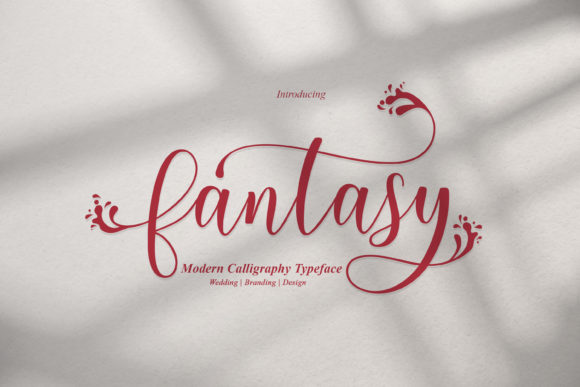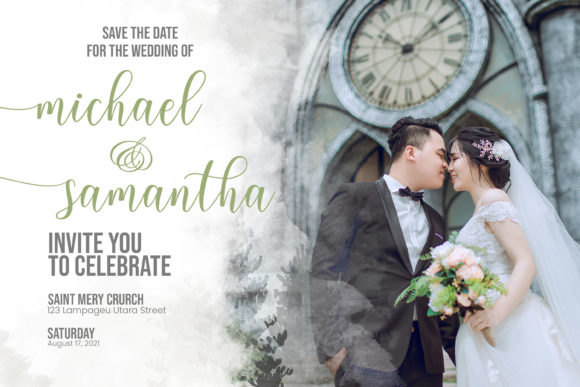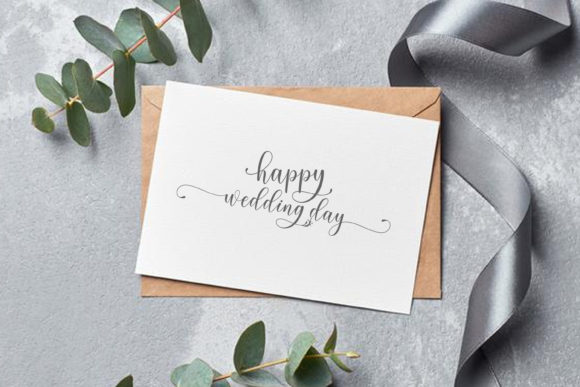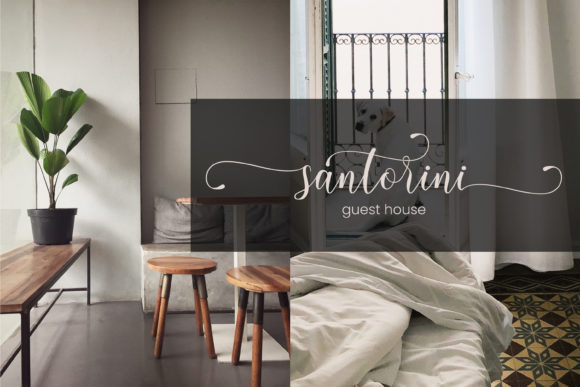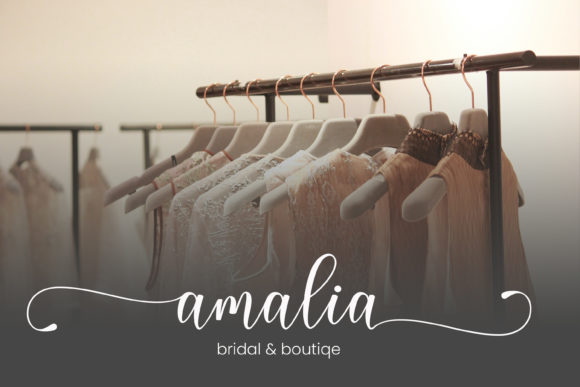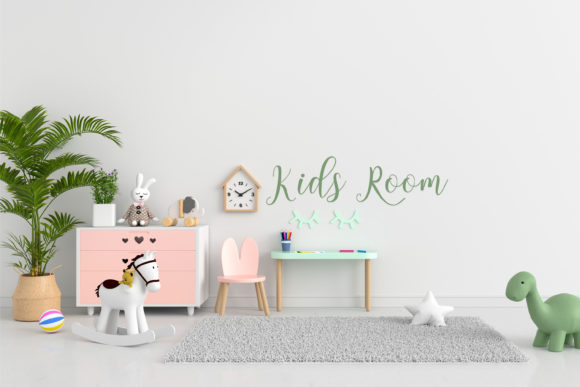
Fantasy Script Font: Elevate Your Designs with Elegance and Sophistication
In the realm of typography, few fonts manage to convey the essence of luxury and refinement as effectively as the Fantasy Script Font. This exquisite script font is designed to bring a touch of sophistication and elegance to any project, making it a versatile choice for designers and crafters alike. With its stylish alternates and ligatures, Fantasy Script Font is poised to become the go-to typeface for those seeking to elevate their designs.
The Essence of Fantasy Script Font
Fantasy Script Font is more than just a typeface; it’s an experience. Its chic and refined design exudes an air of luxury, perfect for projects that demand a high level of sophistication. Whether you’re working on a branding campaign, packaging design, or a website layout, this font ensures that your text looks elegant and premium.
Key Features of Fantasy Script Font
- Stylish Alternates: One of the standout features of Fantasy Script Font is its collection of stylish alternates. These variations allow you to customize your text, adding a unique touch to your designs. Whether you need a more formal look or something a bit more whimsical, the alternates have got you covered.
- Ligatures: Ligatures are essential for creating a natural flow in script fonts, and Fantasy Script Font does not disappoint. The ligatures in this font are meticulously crafted to ensure that the text flows smoothly, enhancing readability and aesthetic appeal.
- Elegance and Versatility: What sets Fantasy Script Font apart is its perfect blend of elegance and versatility. It can be used in a wide range of projects, from high-end branding and advertising to elegant stationery and web design.
Applications of Fantasy Script Font
The versatility of Fantasy Script Font makes it suitable for various applications. Here are some of the areas where this font truly shines:
- Branding and Logo Design: For brands aiming to convey luxury, sophistication, and elegance, Fantasy Script Font is an excellent choice. Its unique and stylish appearance can help a brand stand out in a crowded market.
- Website Design: In web design, typography plays a crucial role in user experience. Fantasy Script Font, with its readability and aesthetic appeal, can add a touch of class to any website, making it more engaging for visitors.
- Packaging Design: For product packaging, especially for high-end or luxury goods, the font used can significantly impact consumer perception. Fantasy Script Font can add an element of sophistication and premium quality to packaging designs.
- Stationery and Invitations: Whether it’s wedding invitations, business cards, or letterheads, Fantasy Script Font can elevate the design of any stationery item, making it look more refined and elegant.
Tips for Using Fantasy Script Font
To make the most of Fantasy Script Font, consider the following tips:
- Pair it Wisely: When pairing Fantasy Script Font with other typefaces, opt for fonts that complement its elegance. Simple sans serifs or classic serifs work well for creating contrast and hierarchy.
- Adjust Letter Spacing: For optimal readability, especially in longer texts, adjust the letter spacing. This ensures that the text remains clear and visually appealing.
- Utilize Alternates and Ligatures: Don’t hesitate to experiment with the font’s alternates and ligatures. These features can add a personal touch to your designs, making them stand out.
| Font Name | Fantasy Script Font |
| Author | Mrletters |
Fantasy Script Font is a powerful tool for designers and crafters looking to infuse their projects with elegance and sophistication. Its stylish alternates, ligatures, and versatile nature make it an excellent choice for a wide range of applications. By incorporating Fantasy Script Font into your designs, you can elevate your work, making it more refined and visually appealing. Whether you’re aiming to create a luxurious brand image, an elegant website, or sophisticated packaging, Fantasy Script Font is your gateway to achieving typographic excellence.